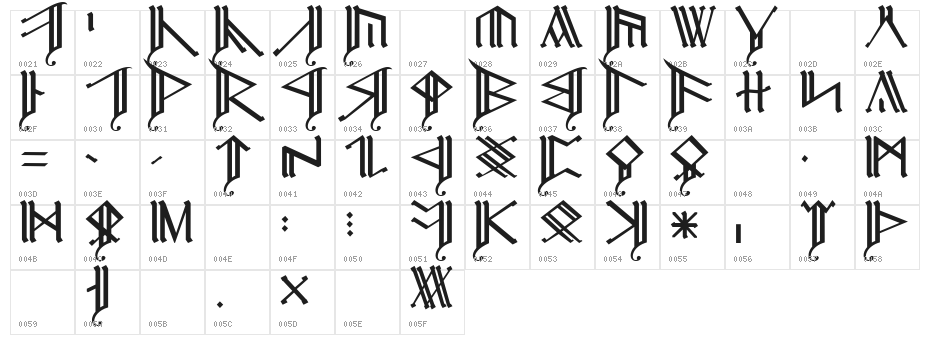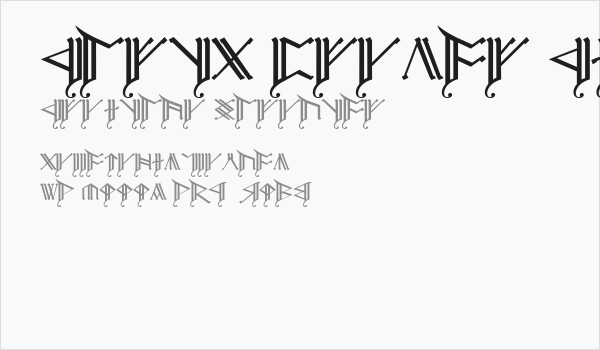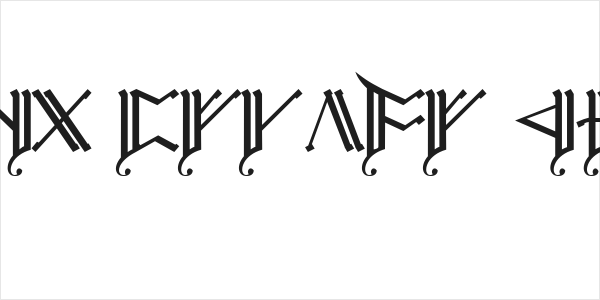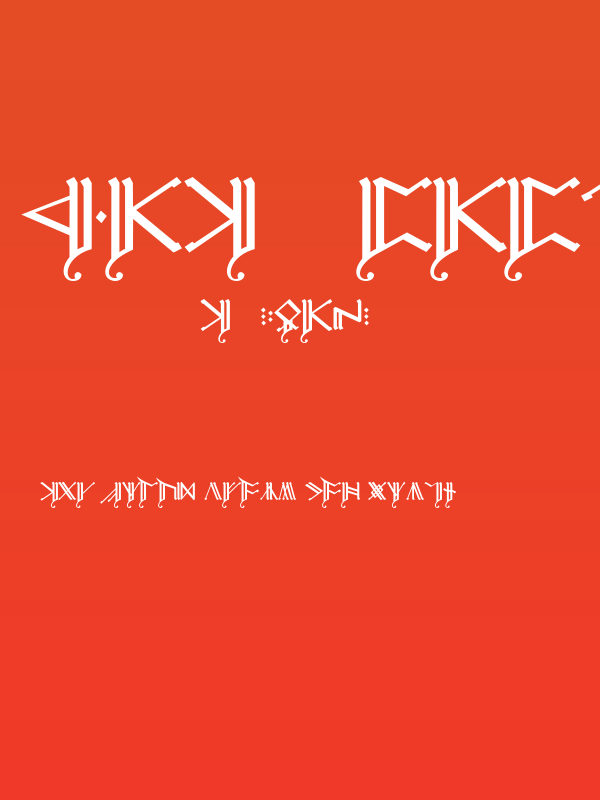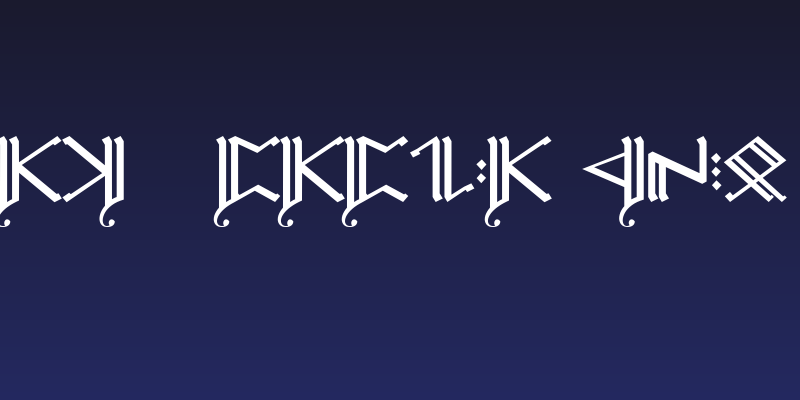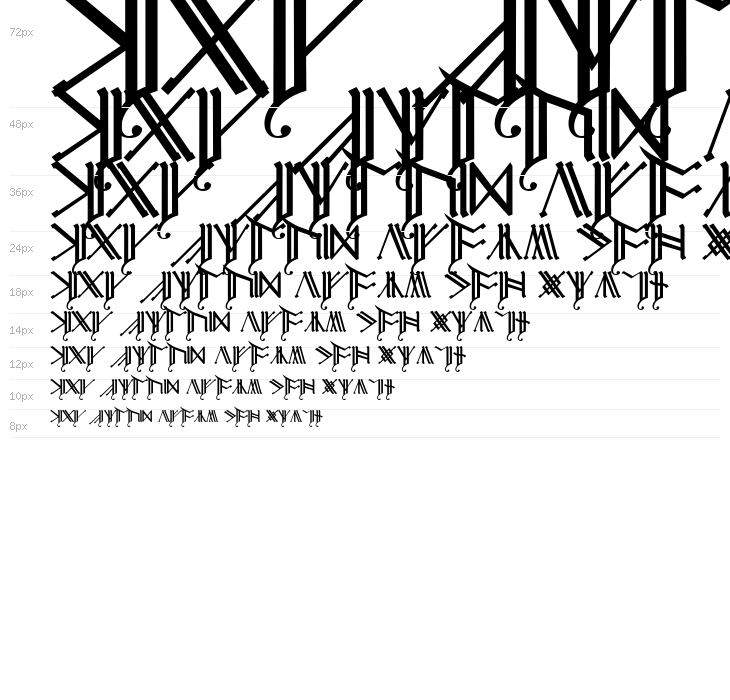
Cirth Erebor Caps 2 Font
Cirth Erebor Caps 2 Description
This font features a highly decorative and intricate design, reminiscent of ancient runic scripts. The characters are composed of sharp, angular lines with unique embellishments, giving them a mystical and archaic appearance. The font is characterized by its bold strokes and elaborate detailing, making it stand out as a display typeface. Each letter is distinct, with a strong emphasis on geometric shapes and symmetry, creating a cohesive yet complex visual style. The font's aesthetic is ideal for projects that require a touch of fantasy or historical ambiance, such as themed events, fantasy novels, or role-playing games.
| Proposed Projects | Ideal for fantasy novels, themed events, role-playing games, or any project requiring a historical or mystical touch. |